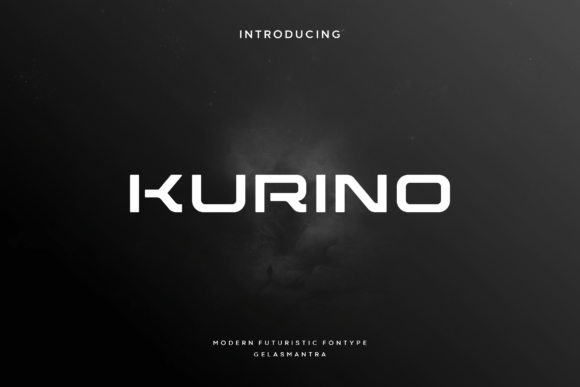
Journey into the realm of avant-garde typography with Kurino, a visionary display font that transcends the boundaries of conventional design. Its sleek, futuristic strokes exude a captivating aura, leaving an indelible mark on your creative endeavors.
Crafted by the visionary minds at garismantra, Kurino is not merely a font; it's an experience. Its meticulously engineered characters embody the essence of modernity, seamlessly blending sharp angles with fluid curves. Whether you're designing a striking logo, crafting a captivating social media post, or composing a thought-provoking presentation, Kurino will elevate your work to new heights.
Envision your words dancing across the page, imbued with an otherworldly elegance that commands attention. Kurino's inherent versatility empowers you to tackle a myriad of projects, from sleek business cards to eye-catching posters. Its diverse range of weights and styles ensures that your message will resonate with impact, regardless of the medium.
Embrace the allure of the unconventional and unleash your creativity with Kurino. Let its futuristic charm ignite your imagination and propel your designs to unprecedented levels of sophistication. Join the ranks of creative visionaries who have embraced Kurino's brilliance and witnessed the transformation of their work.